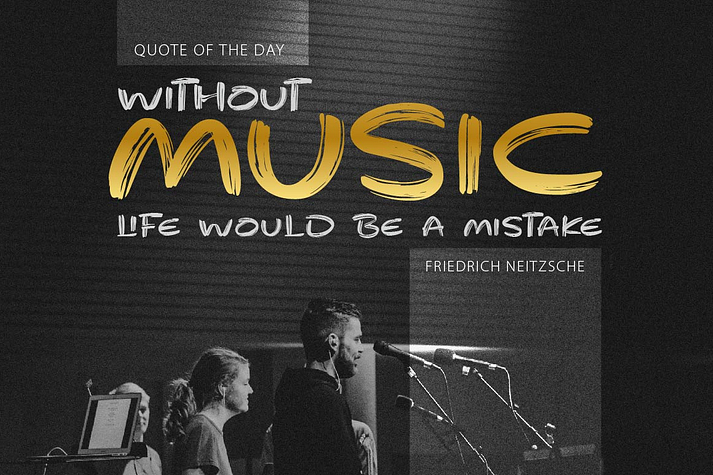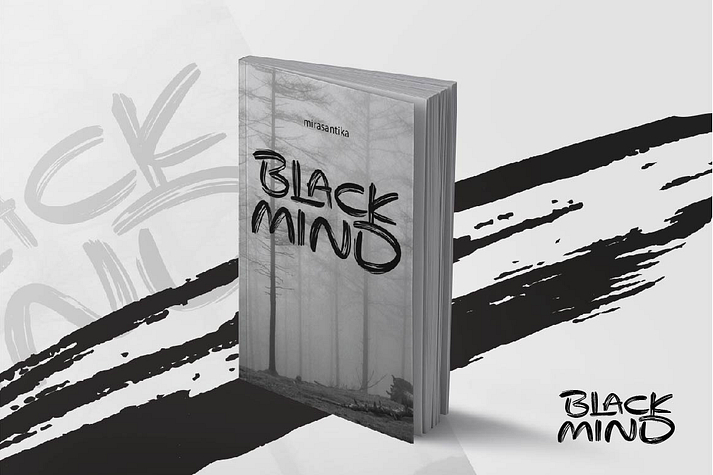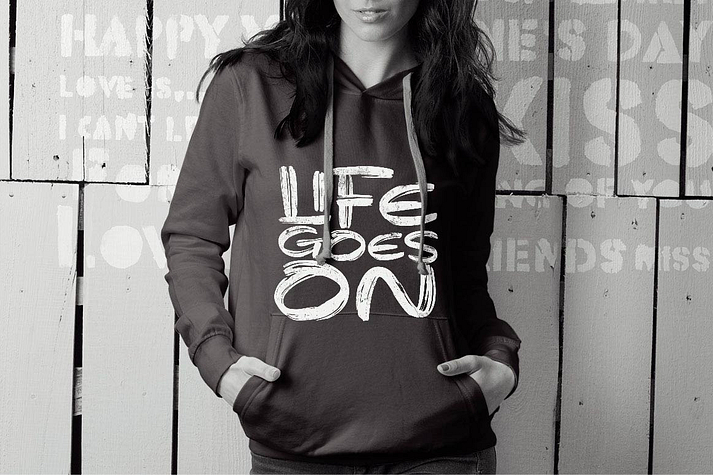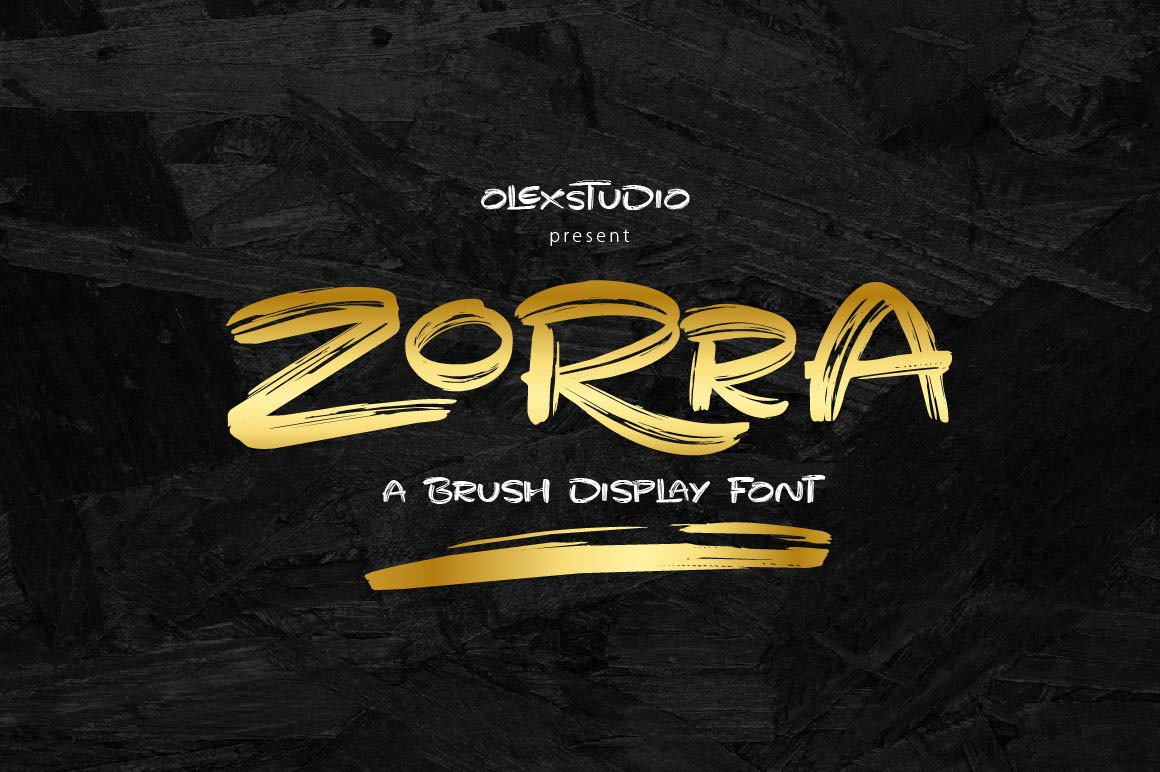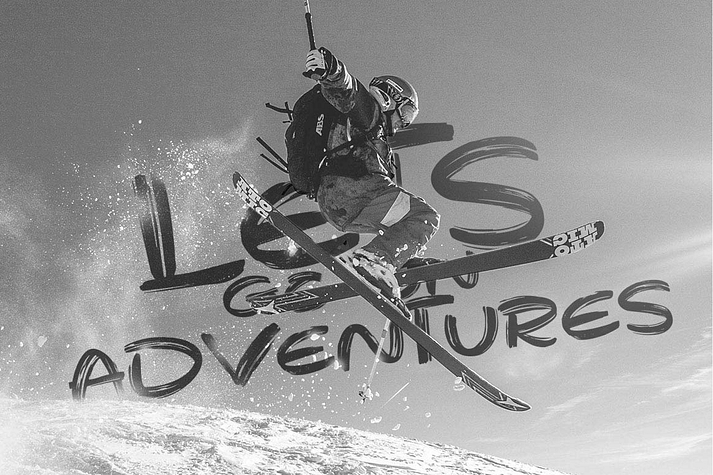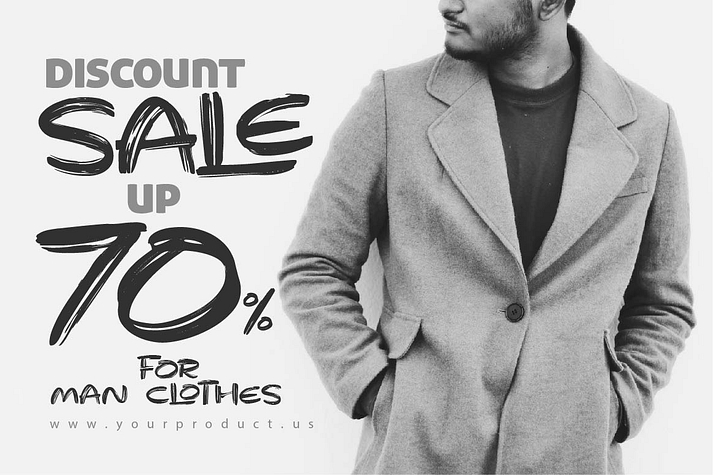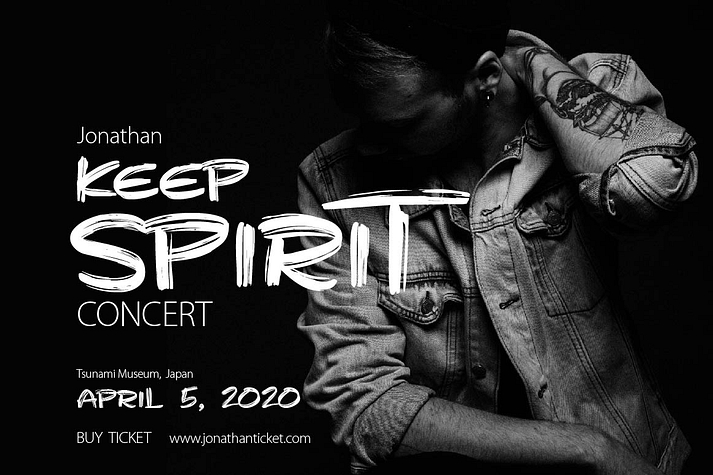
Zorra
Zorra is a font family published by olexstudio.
Zorra-Display Font
Zorra-Display Font This Font will look gorgeous on all your designs, invitation, book, branding materials, logo’s, t-shirt, poster and all project design other.
Zorra-Display Font contains standard characters, all character is Uppercase, numbers, punctuation, ligatures and international glyphs. You will receive OTF, TTF files.